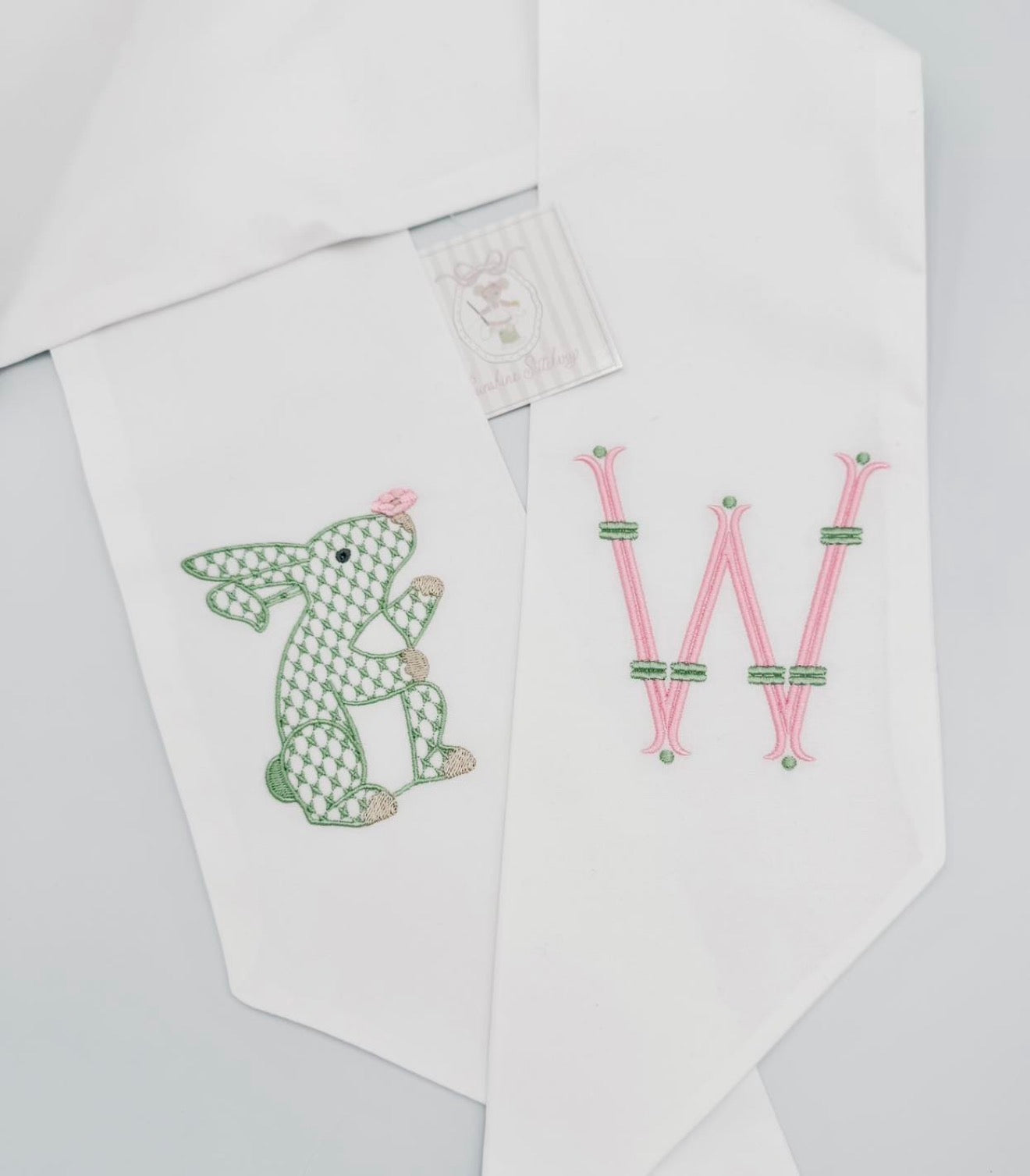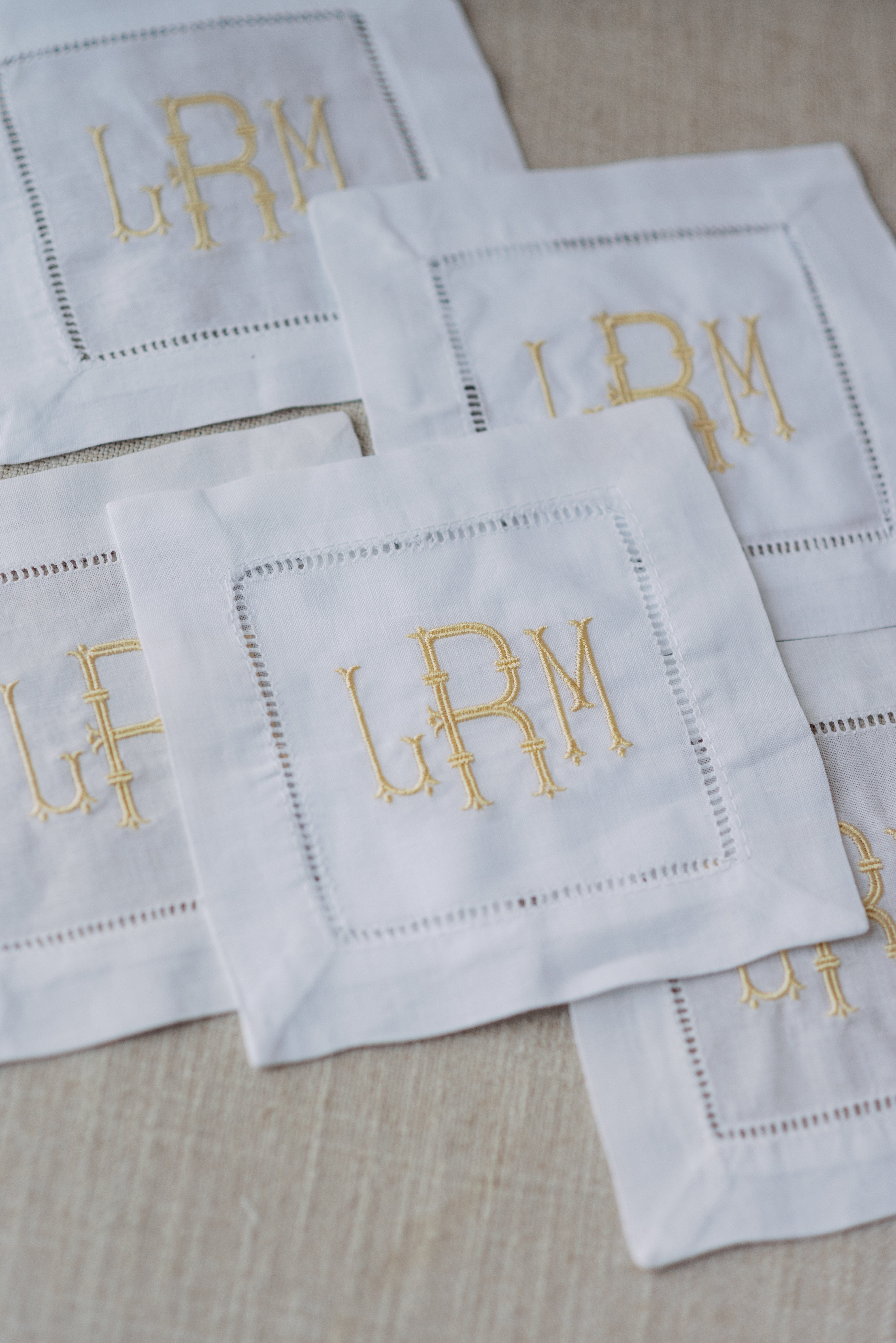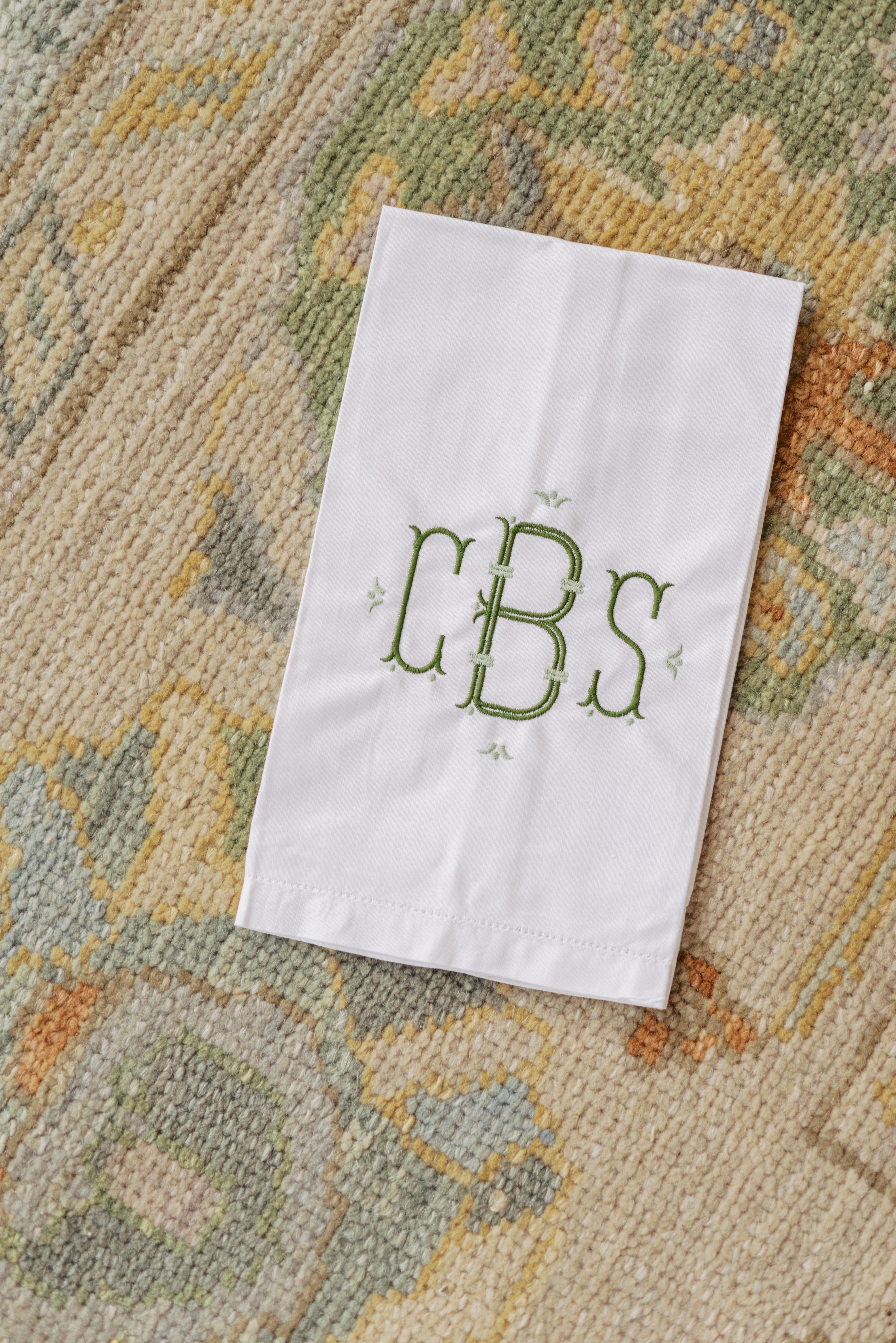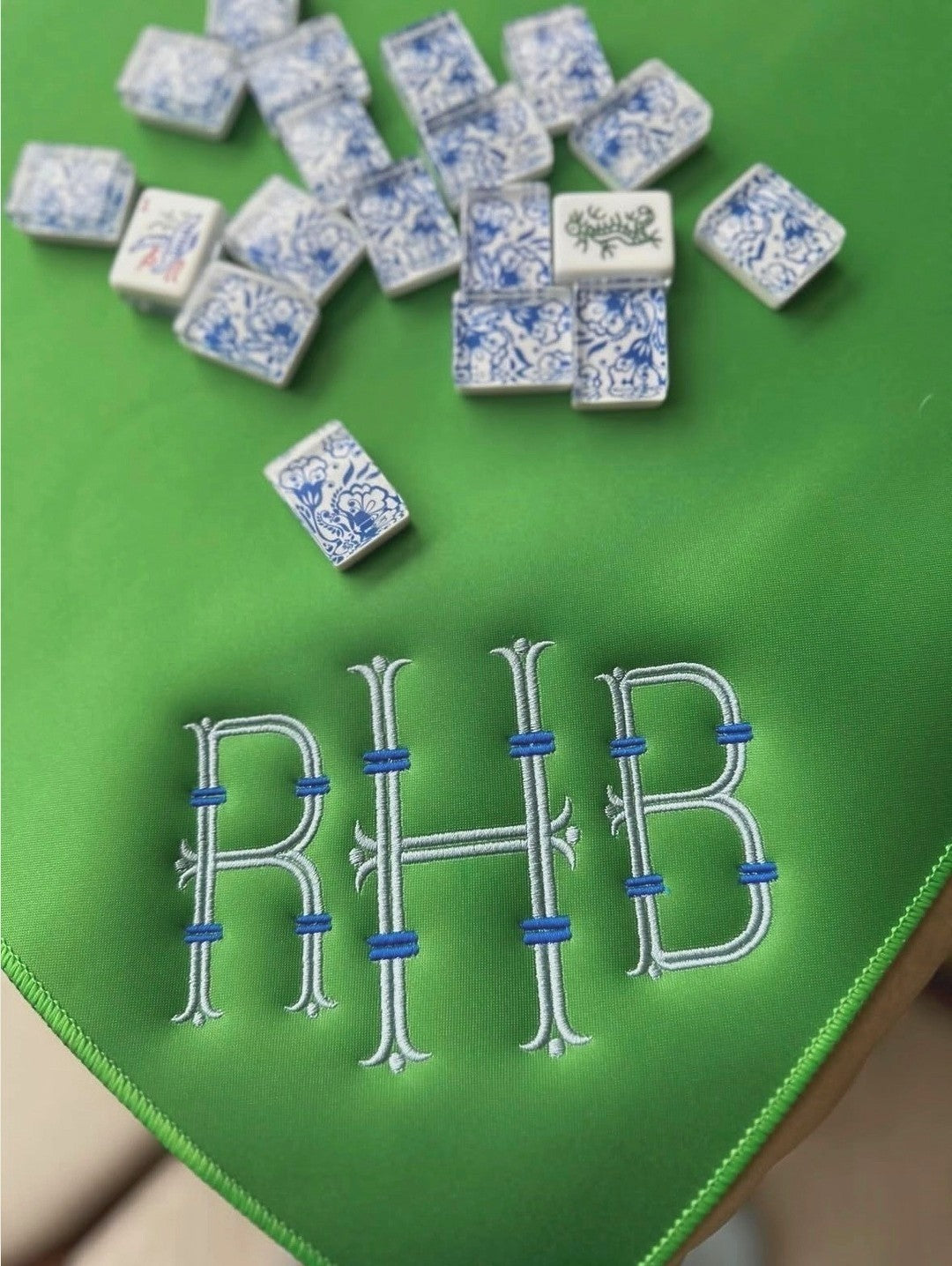
Monogram Flair Font for Embroidery
Monogram Flair is a gorgeous collection of 26 center letters and 26 coordinating right and left letters. The outer letters boast a unique fishtail with dot design, while the center letters have ornate flairs accented with dots.
The result is a beautiful font that can be used as a 1, 2, or 3-letter monogram, or as a name.
Monogram Flair includes 26 center letters as the master size, 26 coordinating right/left letters, and 5 coordinating frames. This packages comes in:
Perfect for embroidery, the careful attention in the digitization of each design makes personalization unique and beautiful!